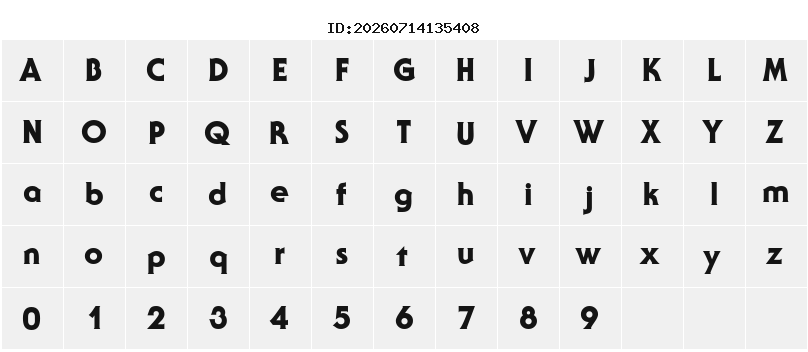
• Font Name: JennyBlackDB
• Full Font Name: JennyBlackDB Normal
• Copyright: Copyright by Christine Mauerkirchner und Rainer Grunert
About JennyBlackDB.ttf
JennyBlackDB.ttf is a modern, elegant sans-serif font designed for ultimate readability and visual harmony. Perfect for branding, headlines, web design, and print materials.